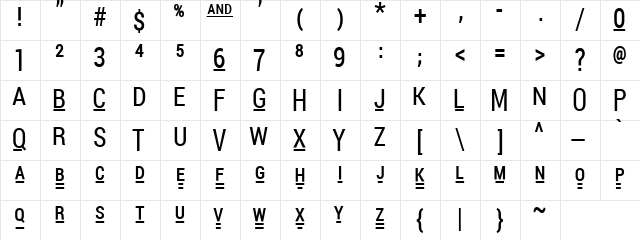
Pocket Thrilled FP Regular
Design Context for Pocket Thrilled FP Typeface
Pocket Thrilled FP is a composed and adaptable typeface that performs quietly and consistently across a wide range of design contexts.
Pro Tip: Use Pocket Thrilled FP in both headline and body roles to test its range before committing to a single application.